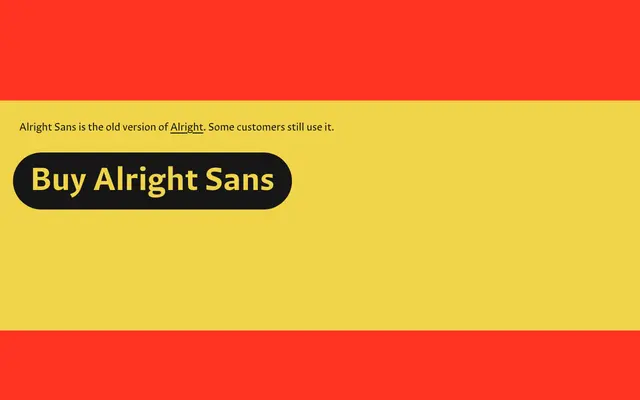
Alright Sans
An older sans-serif from Okay Type, now superseded by Alright but still available for existing customers.
Alright Sans is the original release that preceded the updated Alright family from Okay Type. The foundry keeps it available for customers already using it in existing projects. Little detail is provided on the page, as it is effectively a legacy offering rather than an active product.
Named as a sans-serif and positioned as a predecessor to Alright; the name and foundry context suggest a humanist sans-serif lineage typical of Okay Type's output.